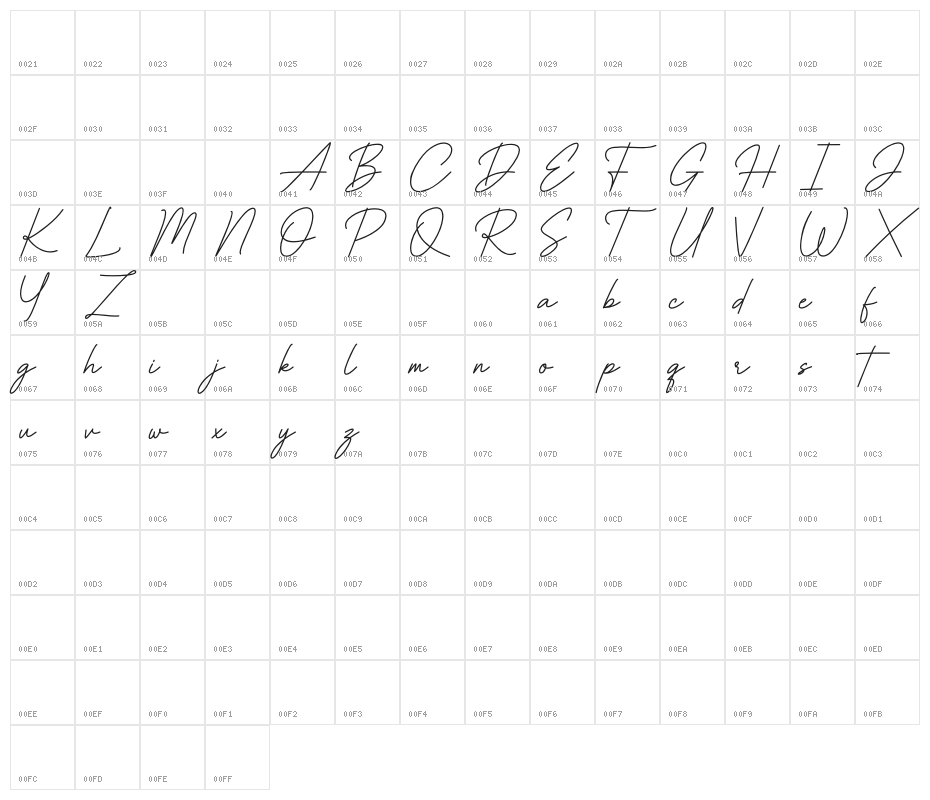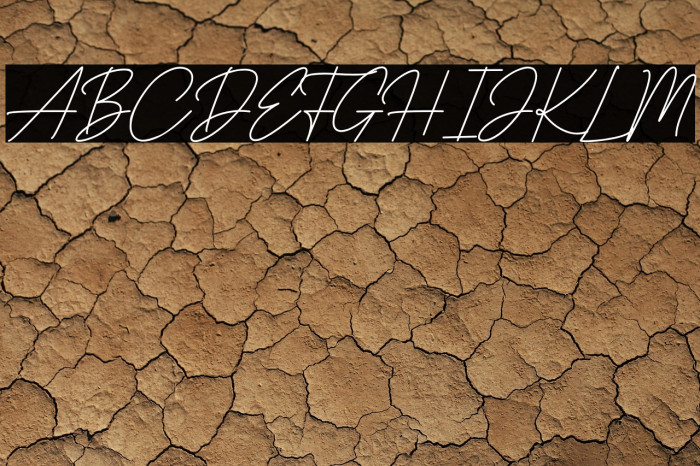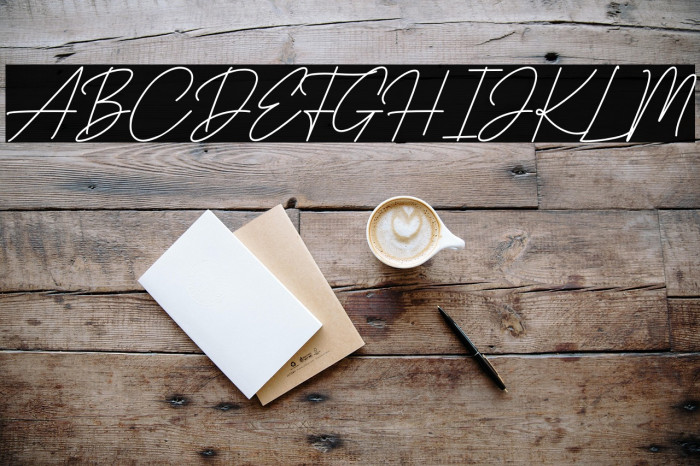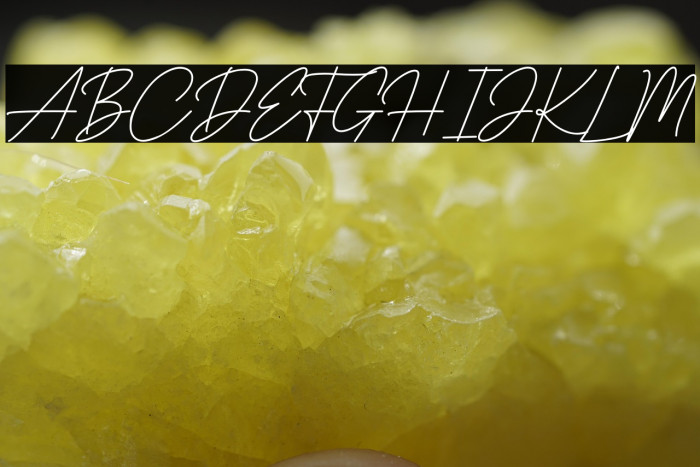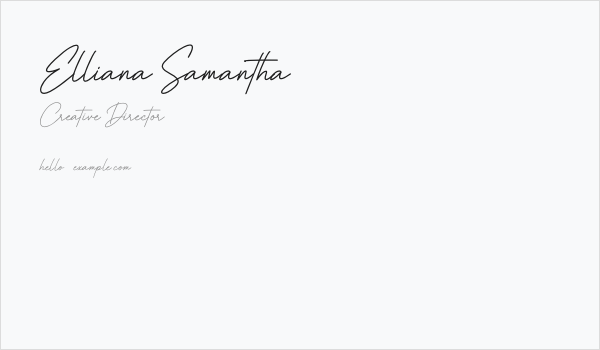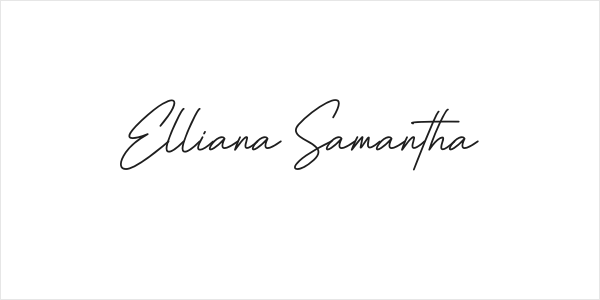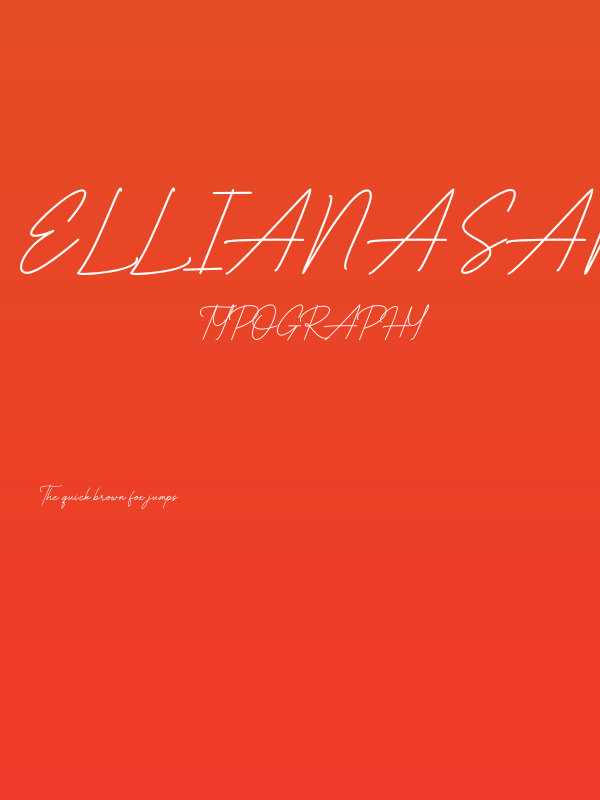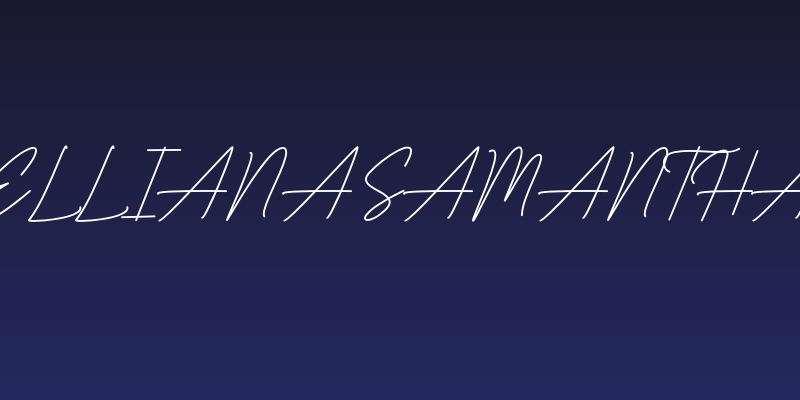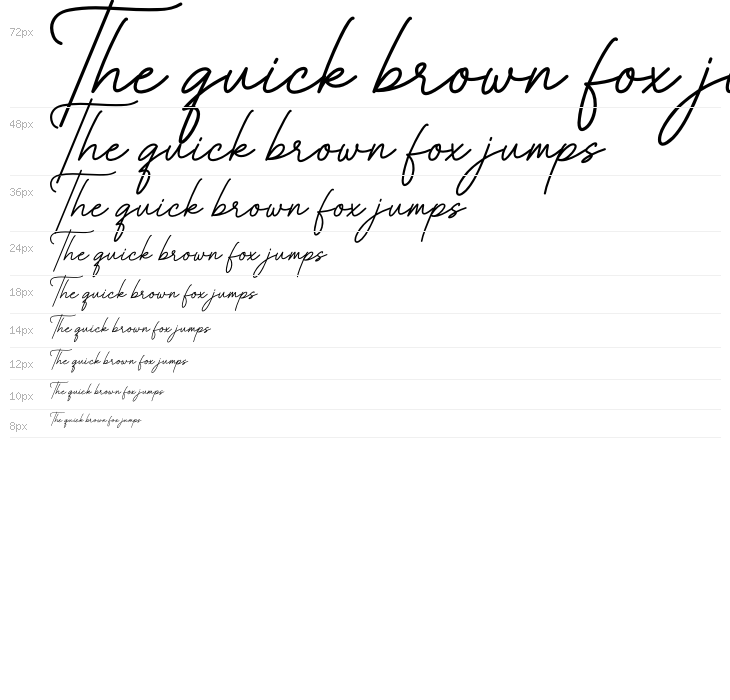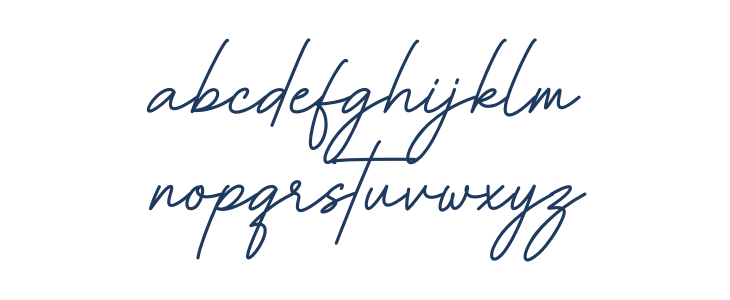
Elliana Samantha Font
Elliana Samantha Description
This font exudes a modern, handwritten style with a touch of elegance and fluidity. The uppercase letters are tall and slender, with a slight slant that adds a dynamic feel. The lowercase letters maintain a consistent flow, creating a harmonious and connected appearance. The strokes are smooth and continuous, emphasizing the handwritten aesthetic. The overall look is clean and sophisticated, making it suitable for a variety of design applications. The font's unique character is enhanced by its delicate curves and subtle variations in line thickness, giving it a personal and artistic touch.
Use CaseLogos, Invitations, Personal Branding
Proposed ProjectsIdeal for wedding invitations, personal branding, greeting cards, and elegant logos.